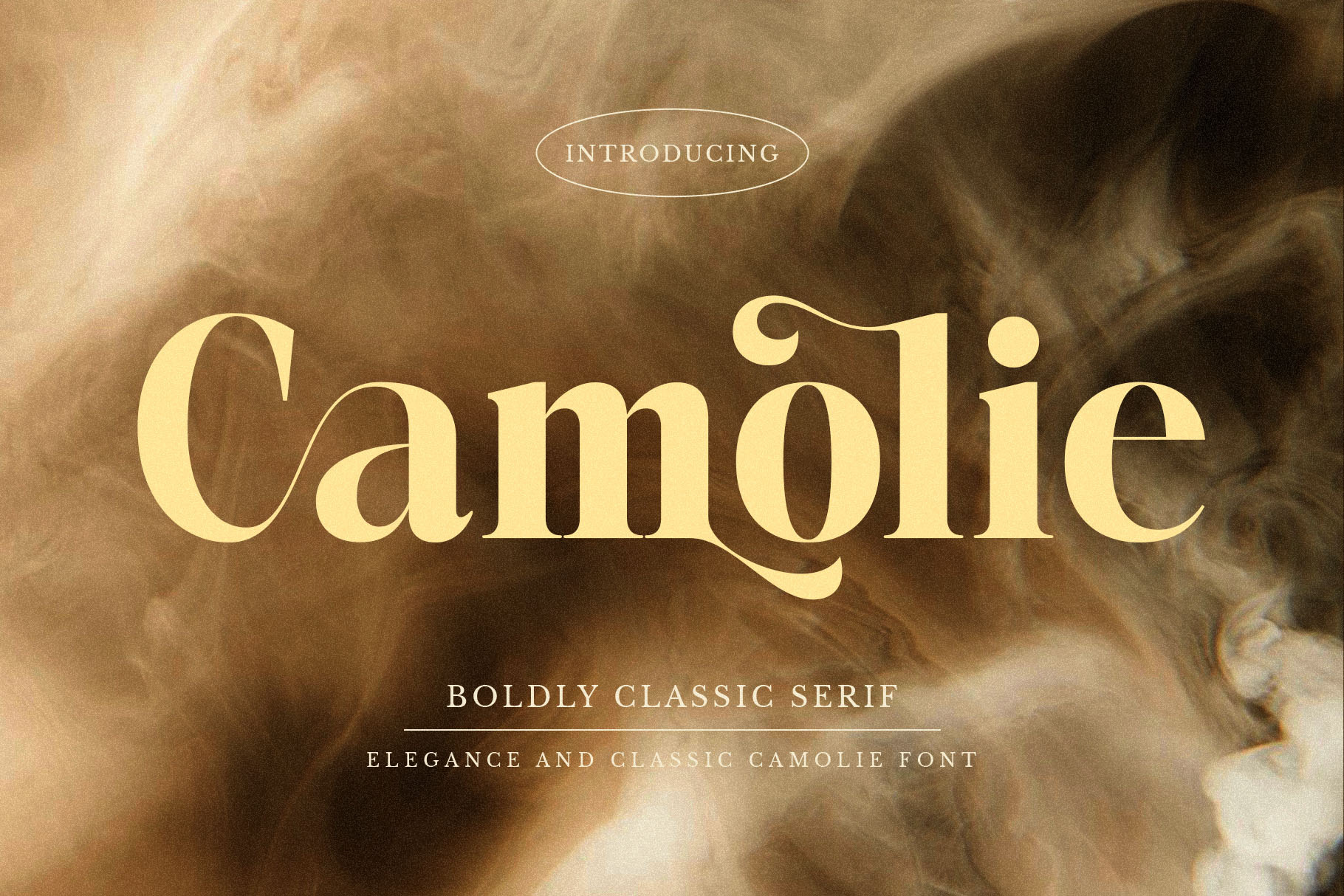
Camolie - Elegant Serif Font
Introducing our new "Camolie" unique and modern serif font with elegant style this is perfect for branding, logos, invitation, magazines, product packaging and more.